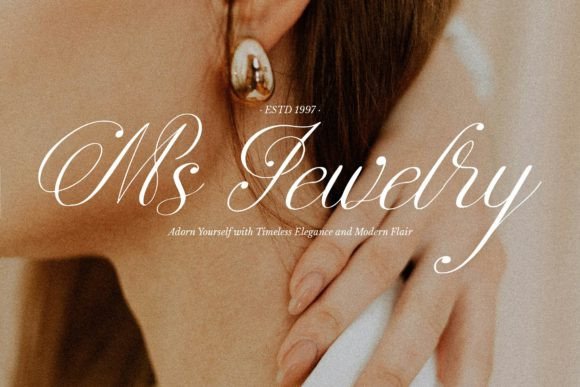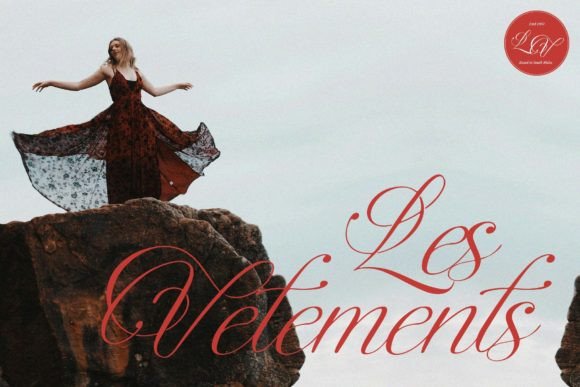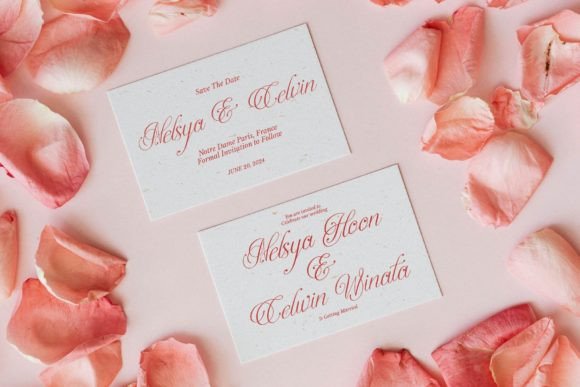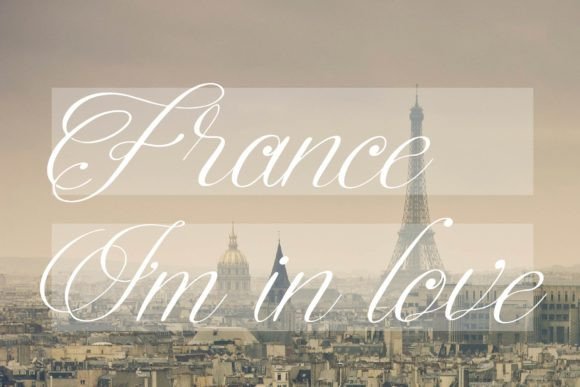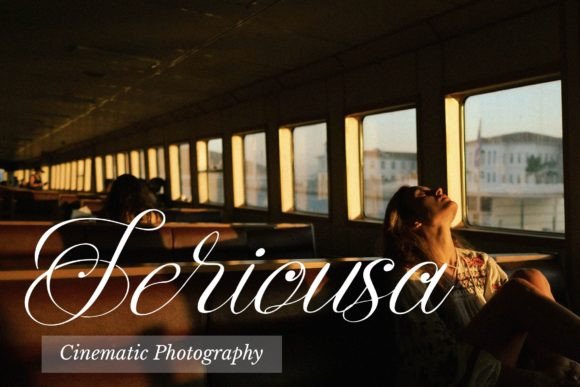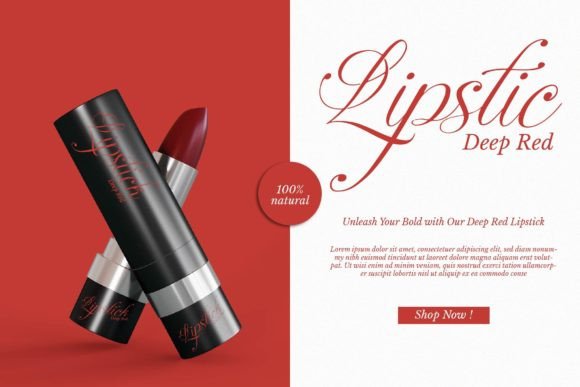
Adeglian Font: Elevate Your Designs with Elegance and Sophistication
In the world of typography, few fonts manage to capture the essence of elegance and sophistication as beautifully as Adeglian. This stylish and incredibly elegant script font has become a favorite among designers and crafters looking to add a touch of refinement to their projects. Whether you’re working on wedding invitations, thank you cards, quotes, greeting cards, logos, business cards, or any other design that requires a handwritten touch, Adeglian is the perfect choice.
The Beauty of Adeglian Font
Adeglian’s beauty lies in its intricate details and flowing lines, which give it a luxurious and sophisticated feel. The font’s elegant strokes and refined letterforms make it perfect for designs that require a high level of sophistication. Its unique and stylish appearance sets it apart from other script fonts, making it a standout choice for designers looking to create something truly special.
Adeglian’s versatility is one of its most appealing features. Its elegant and refined appearance makes it suitable for a wide range of design projects, including:
- Wedding Invitations: Add a touch of romance and sophistication to your wedding invitations with Adeglian.
- Thank You Cards: Express your gratitude in style with Adeglian’s elegant script.
- Quotes: Make your quotes stand out with Adeglian’s refined and sophisticated appearance.
- Greeting Cards: Create beautiful and elegant greeting cards for any occasion.
- Logos: Add a touch of elegance to your logo with Adeglian’s unique and stylish script.
- Business Cards: Elevate your business cards with Adeglian’s sophisticated and refined appearance.
Why Designers and Crafters Love Adeglian
Designers and crafters love Adeglian for its unique combination of elegance and versatility. Here are just a few reasons why:
- High-Quality Design: Adeglian’s high-quality design ensures that your projects look professional and polished.
- Customization: Adeglian’s elegant script can be easily customized to fit your design needs.
- Unique Appearance: Adeglian’s unique appearance sets it apart from other script fonts, making it a standout choice for designers.
Tips for Using Adeglian Font
To get the most out of Adeglian, here are a few tips to keep in mind:
- Pair with Simple Fonts: Pair Adeglian with simple fonts to create a beautiful contrast.
- Use for Headlines: Use Adeglian for headlines and titles to add a touch of elegance.
- Pay Attention to Spacing: Pay attention to spacing to ensure that your design looks polished and refined.